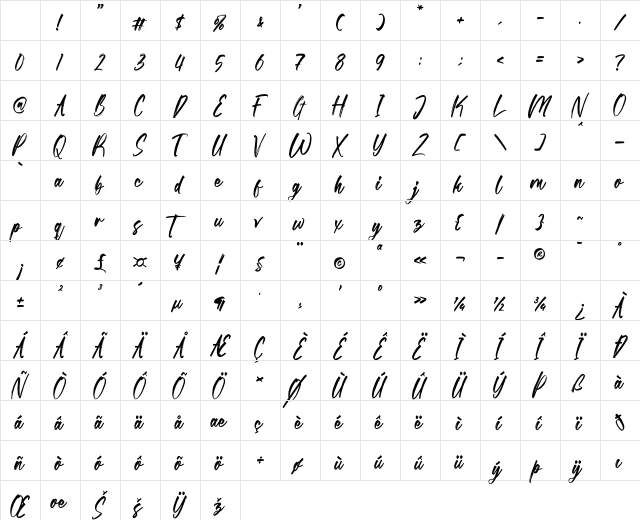
Rinebold Gutisky is a composed and adaptable typeface that performs quietly and consistently across a wide range of design contexts. Its bold stroke weight gives it real presence on the page.